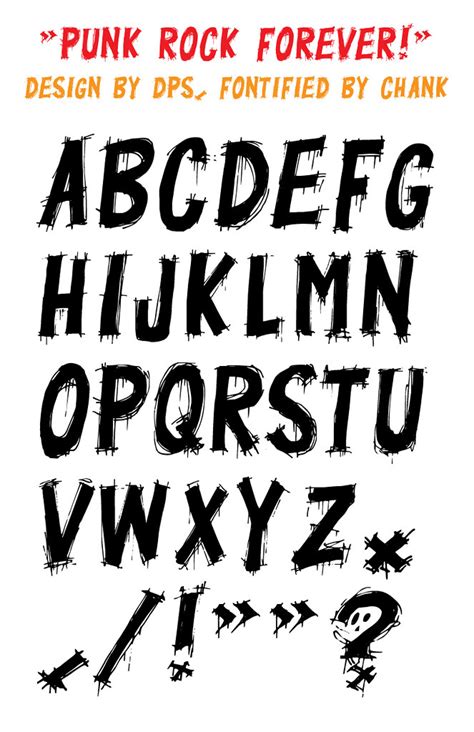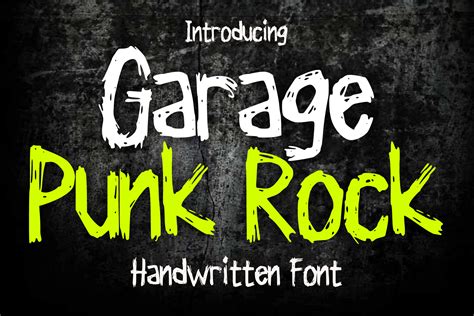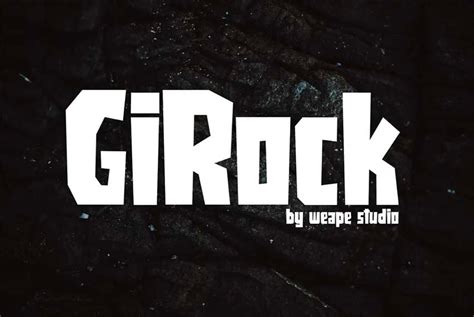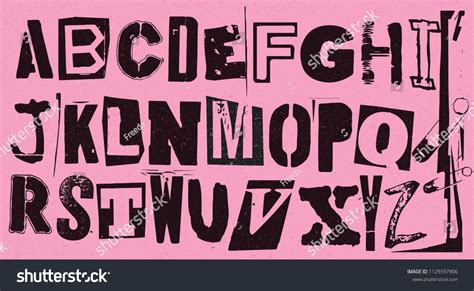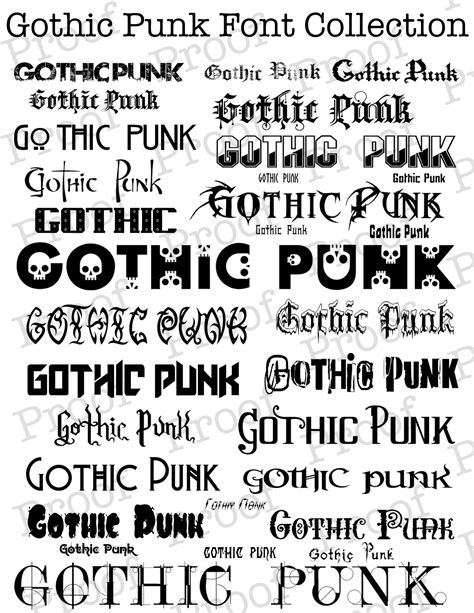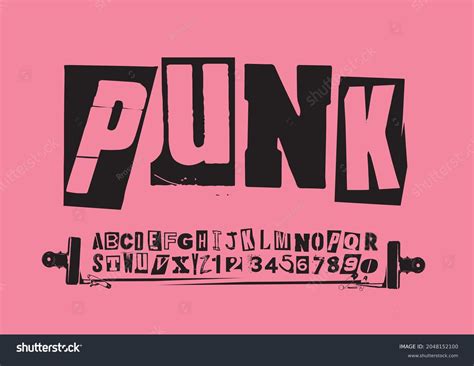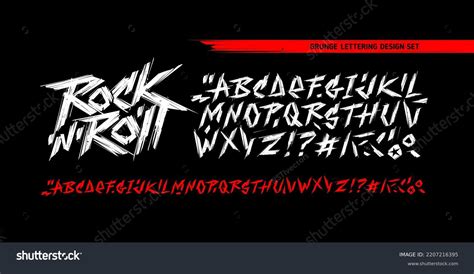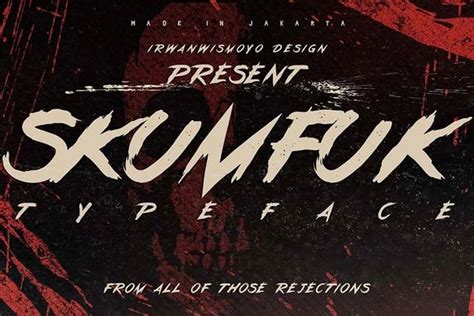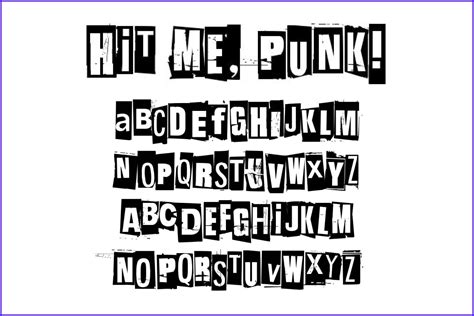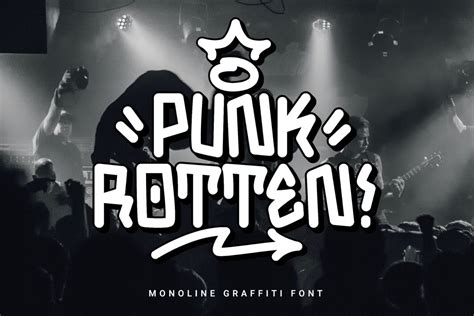
The world of typography is vast and diverse, with countless fonts designed to cater to various tastes and styles. One such unique and distinctive font style is the punk rock font, which has left an indelible mark on the music industry and popular culture. This font style is characterized by its rebellious and edgy aesthetic, reflecting the raw and unfiltered nature of punk rock music.
The design elements of punk rock fonts often include bold, angular lines, sharp edges, and a general sense of chaos and rebellion. These fonts are typically high-contrast, with thick and thin strokes, creating a visually striking and attention-grabbing effect. The style is often associated with the DIY (Do-It-Yourself) ethos of punk, where creativity and self-expression are valued above all else.
One of the key benefits of using a punk rock font is its ability to convey a powerful message. The font's aggressive and unconventional nature can effectively communicate a sense of rebellion, non-conformity, and a rejection of mainstream culture. This makes it an ideal choice for various applications, such as album covers, band logos, posters, and even fashion designs, where a bold and unapologetic statement is desired.